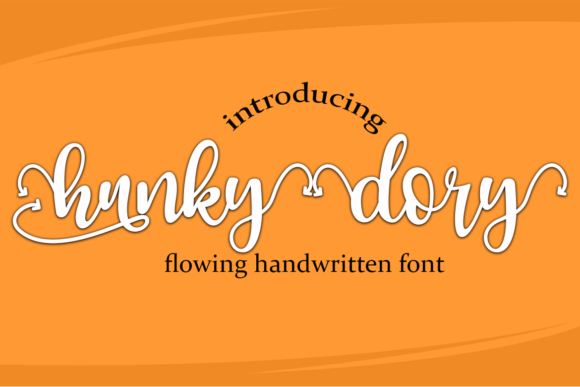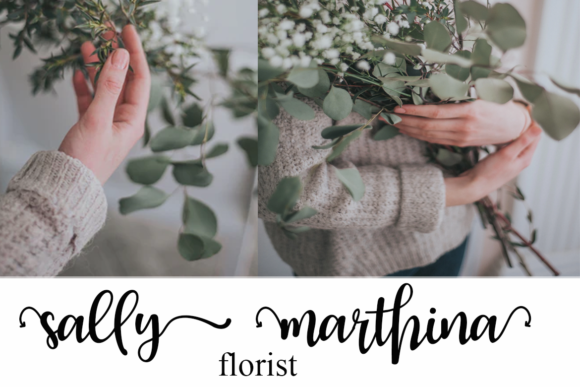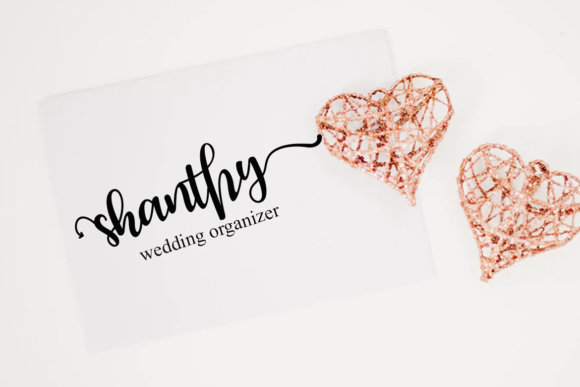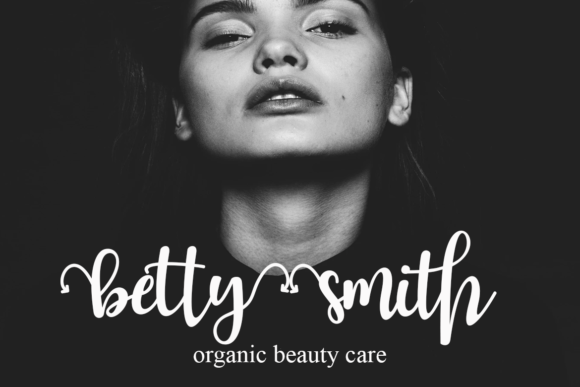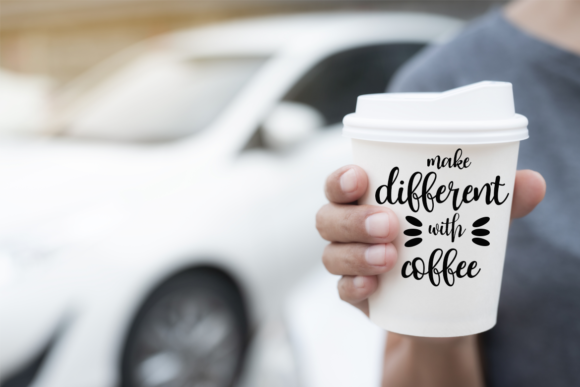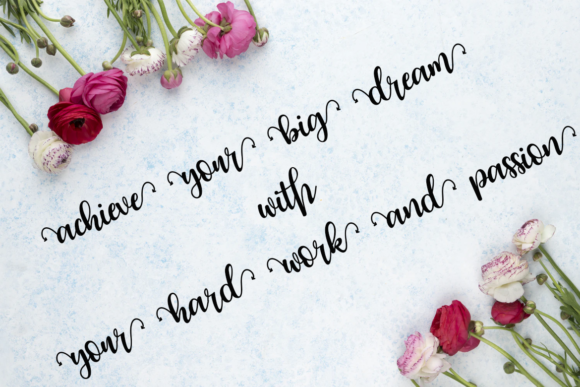
Hunky Dory Font
About Hunky Dory Font
Hunky Dory is a script font that can be described to have an elegant touch, and perfect for your favorite projects. Make use of the additional arrow swashes for a unique design! This font is PUA encoded which means you can access the available glyphs and swashes with ease!